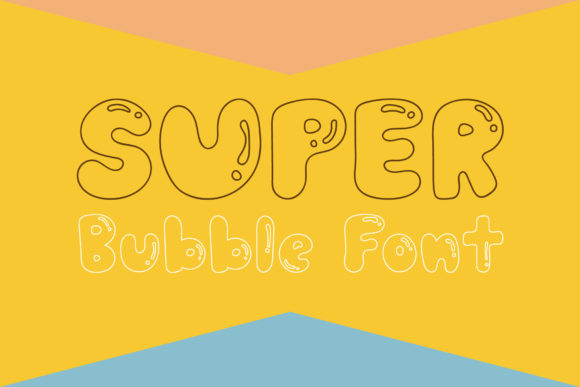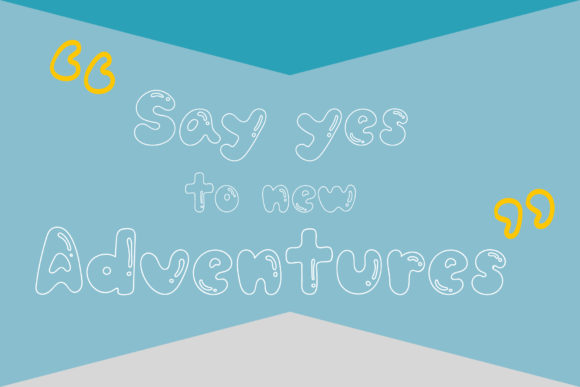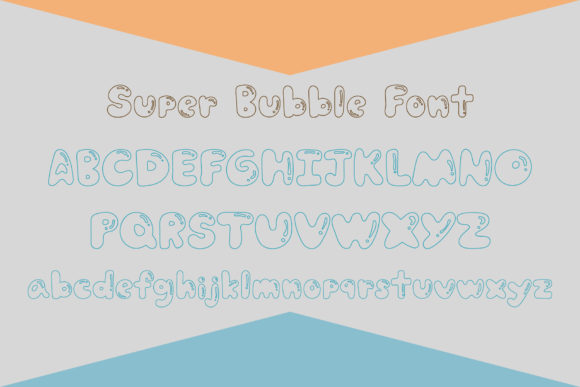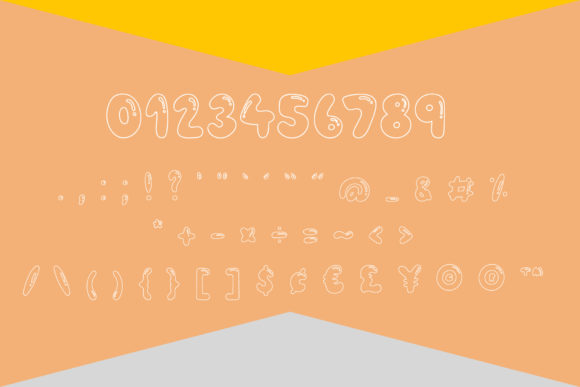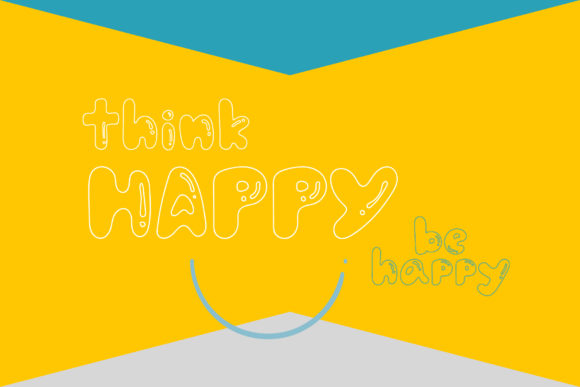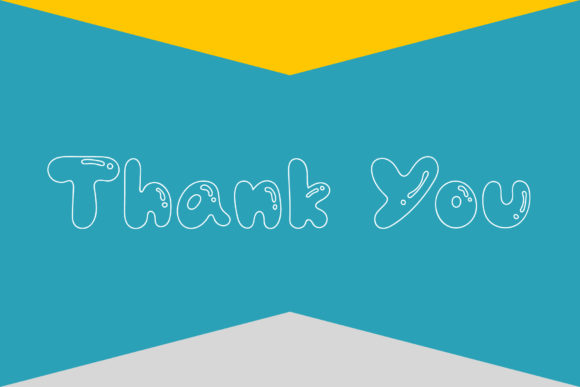
Super Bubble Font
About Super Bubble Font
Super Bubble is a cute and casual handwritten font with an incredibly friendly feel. Whether you’re looking for fonts for Instagram or calligraphy scripts for DIY projects, Supper Bubble will turn any creative idea into a true piece of art!